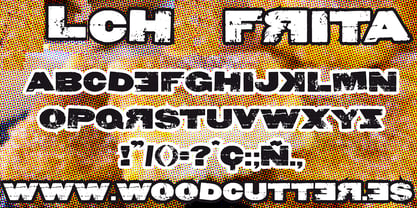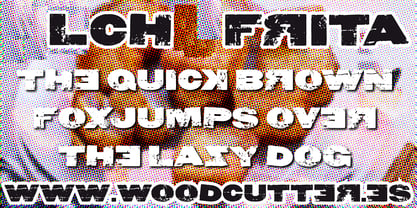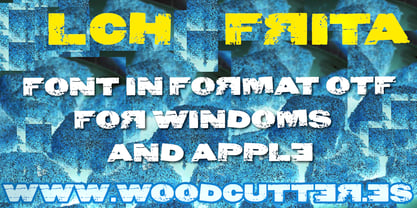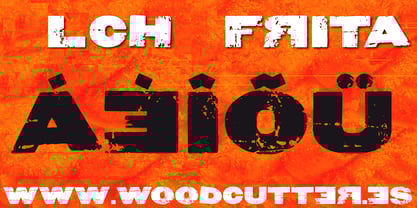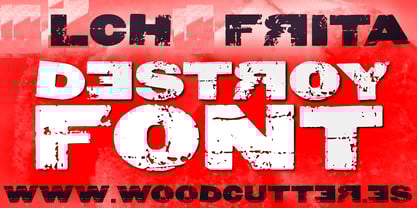
Lch Frita
by Woodcutter
The Lch Frita Font Family was designed by Jordi Manero and published by Woodcutter. Lch Frita contains 1 styles.
LCH FRITA is a typeface in uppercase with accents, featuring ultra bold, solid letters that are visually striking and unapologetically bold. Each character is built with heavy weight and slightly irregular edges, showing signs of wear and texture, as if stamped on rough surfaces or eroded over time. Some letters are intentionally inverted, breaking traditional structure and creating a sense of visual rebellion and chaos. This distortion turns every word into a typographic shout.
Inspired by underground aesthetics, street art, and punk zines, LCH FRITA is perfect for headlines that demand immediate attention, album covers, concert posters, protest materials, or any project that craves graphic rebellion and raw expression. The ironic and provocative name adds to its playful and iconoclastic spirit.
This typeface transforms any message into something impossible to ignore. LCH FRITA isn’t just a font—it’s a visual statement: bold, rough, loud, and undeniably real. Made to break rules and dominate any graphic space.